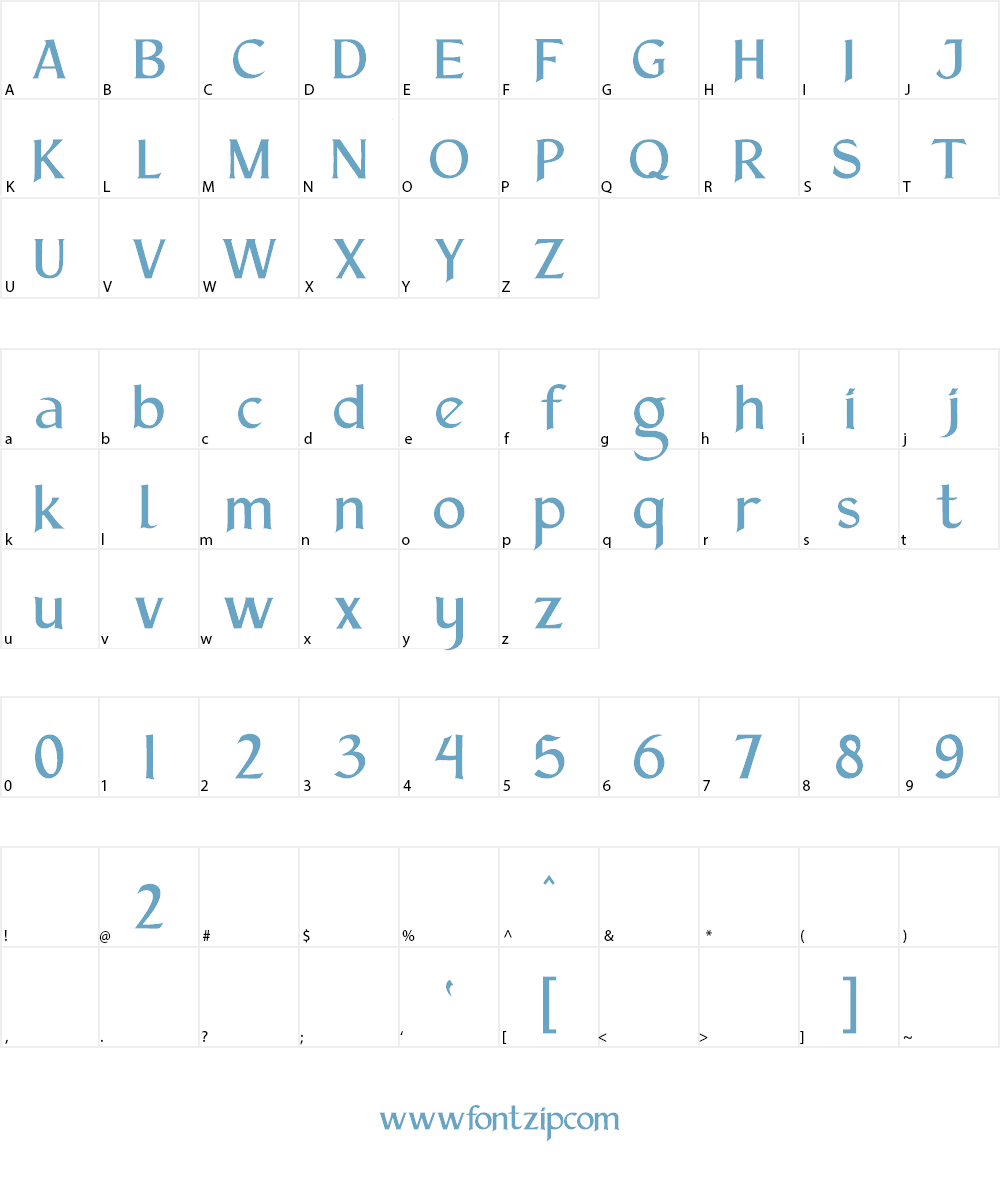
It's name Dragon Fire.
Dragon Fire is a serif display font. This font would perfect for E-sport Logo, film poster, game, sport and any projects.
Dragon Fire Font Features :